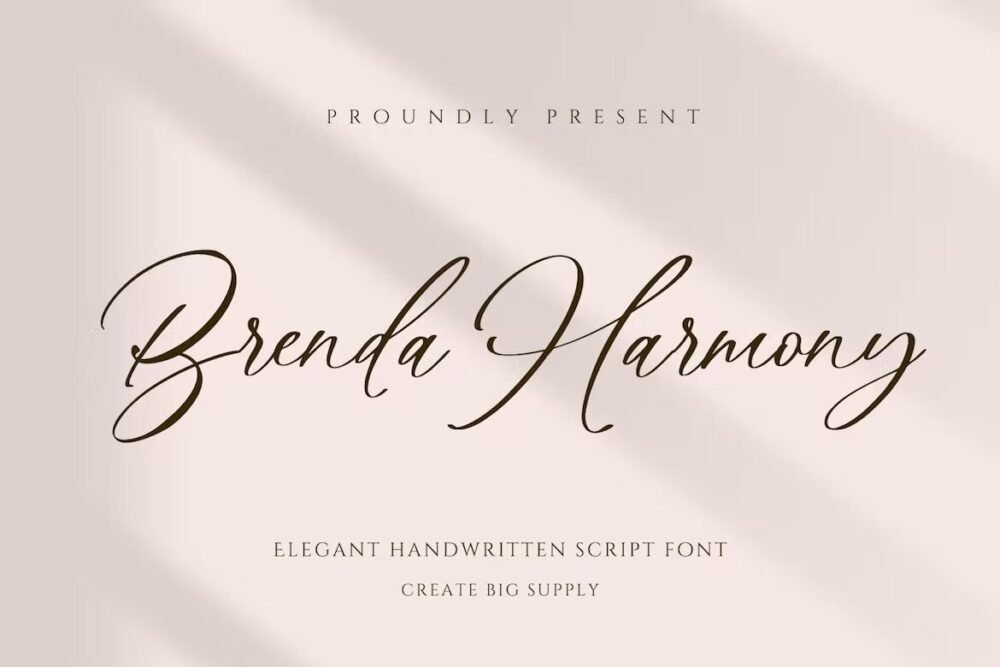
Brenda Harmony Font is a stylized handwritten signature typeface. Be mesmerized by its beautiful style and use it to create beautiful wedding invitations, beautiful stationary art, eye-catching social media posts, and more! This font is PUA encoded which means you can access all the amazing glyphs and ligatures easily.